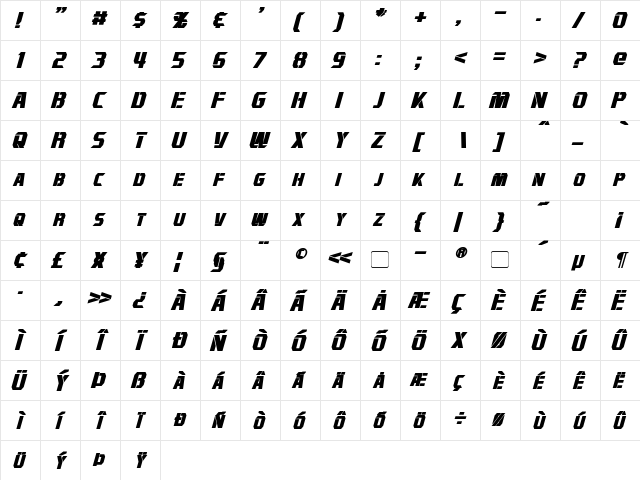
Combatron Bold Italic
Design Context for Combatron Typeface
Combatron draws on military and industrial lettering traditions, with forms that communicate strength and precision. The dynamic lean of this cut emphasises speed and emphasis in any layout. The heavy weight commands attention and anchors typographic hierarchies.
Designed for tactical branding, military-inspired apparel, action game UI, and utility-focused signage.
Pro Tip: Use Combatron at medium-to-large sizes where its utilitarian structure can be appreciated — the character detail gets lost at small sizes.